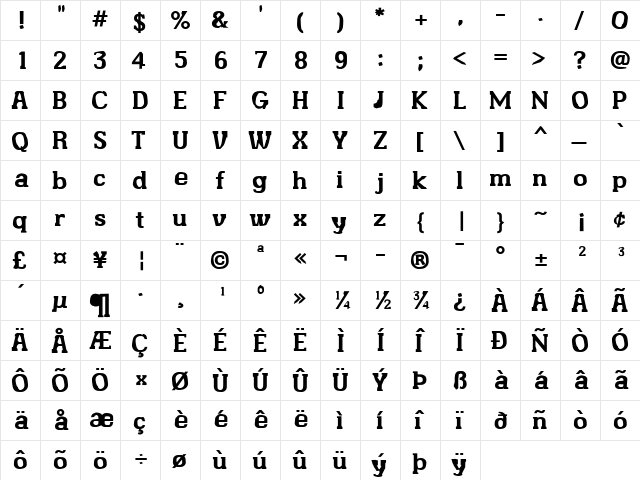
Angoby Bold Font Preview
Angoby Bold
Angoby Bold Font Details
| Foundry | Angobie BOLD\ By Adam Roe, Lunchbox Design |
Design Context for Angoby Typeface
Angoby takes a measured approach to typography — its balanced proportions and neutral character make it a reliable workhorse for both digital and print work. The heavy weight commands attention and anchors typographic hierarchies.